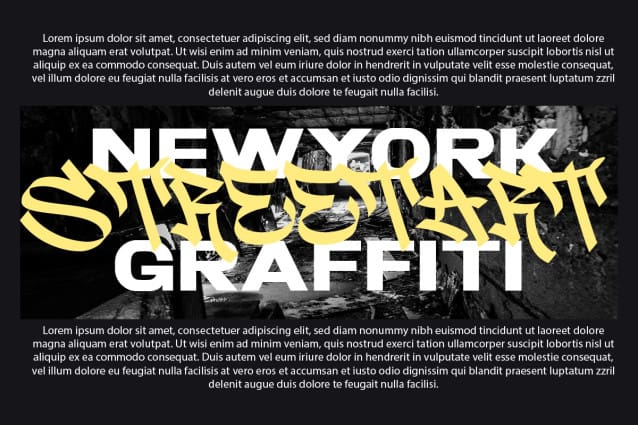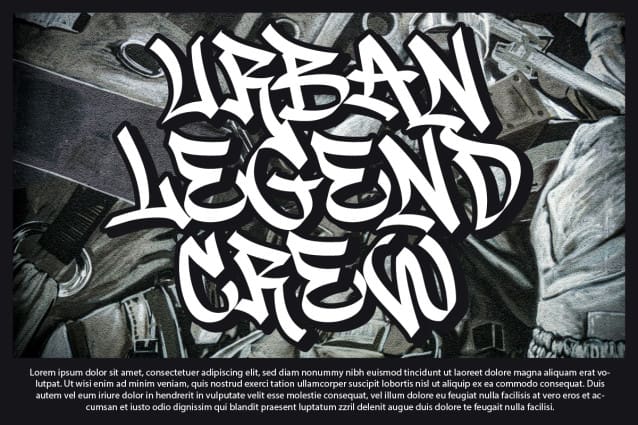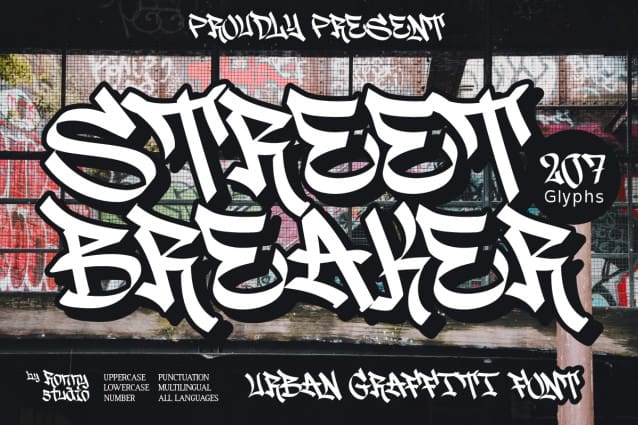
Street Breaker Font
Street Breaker Font, an urban graffiti font that explodes with boldness and attitude. Inspired by street culture and hip-hop vibes, this font is perfect for projects that need a loud, edgy, and rebellious aesthetic. Its dynamic and handcrafted letterforms make it the ideal choice for posters, album covers, streetwear branding, merchandise, and digital art.
Designed to capture the essence of graffiti, Street Breaker gives your typography a raw and authentic feel. Whether you’re creating designs for urban fashion or crafting attention-grabbing visuals for social media, this font will make your projects stand out.